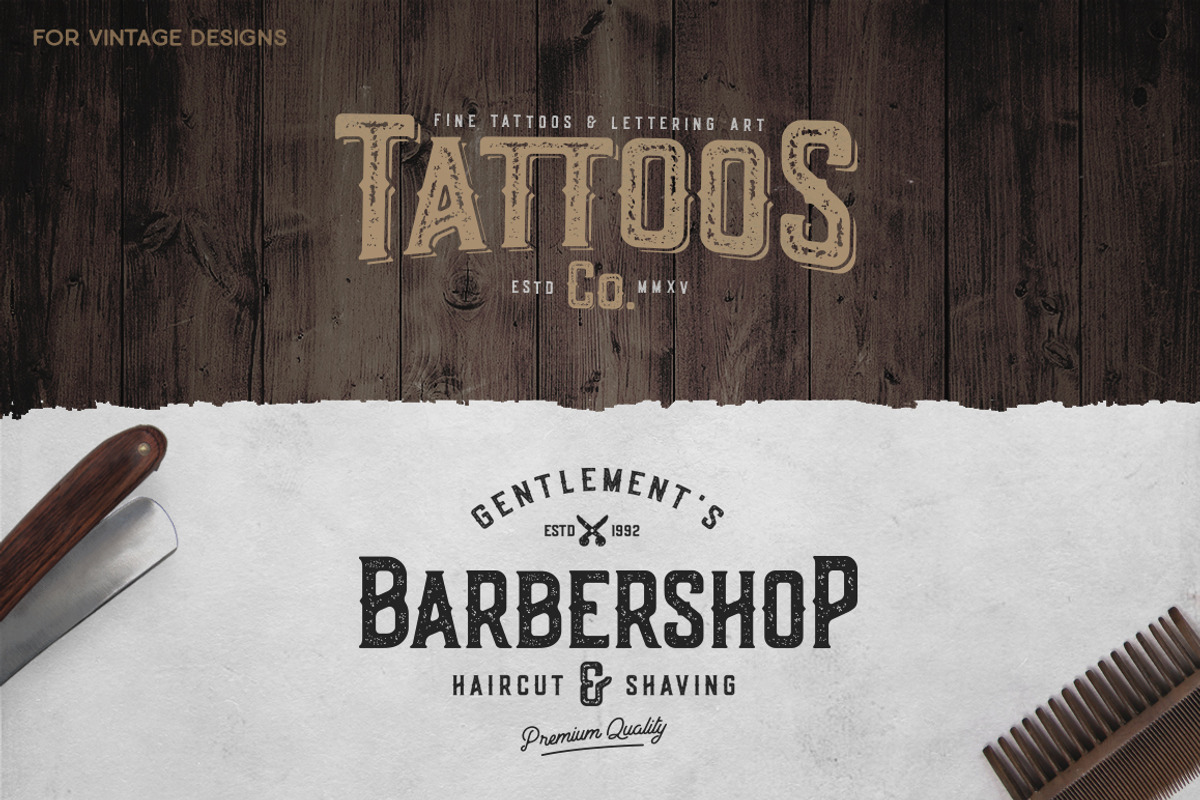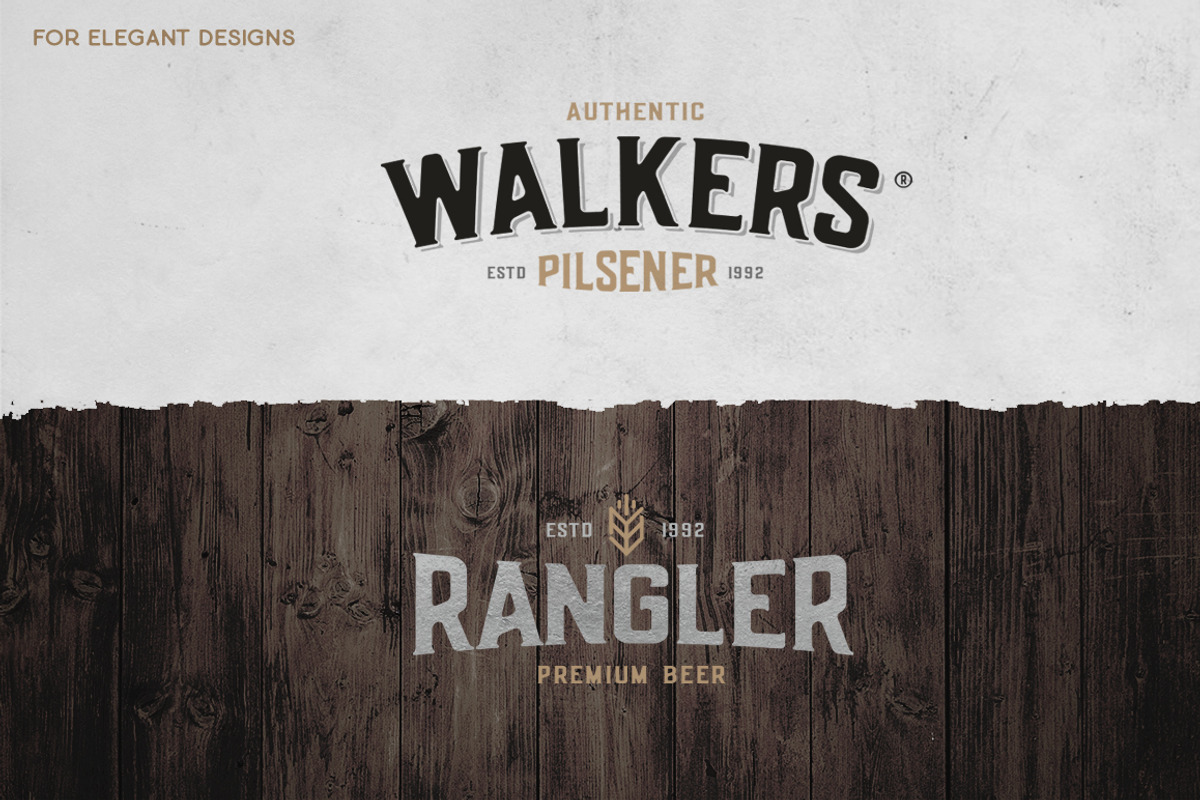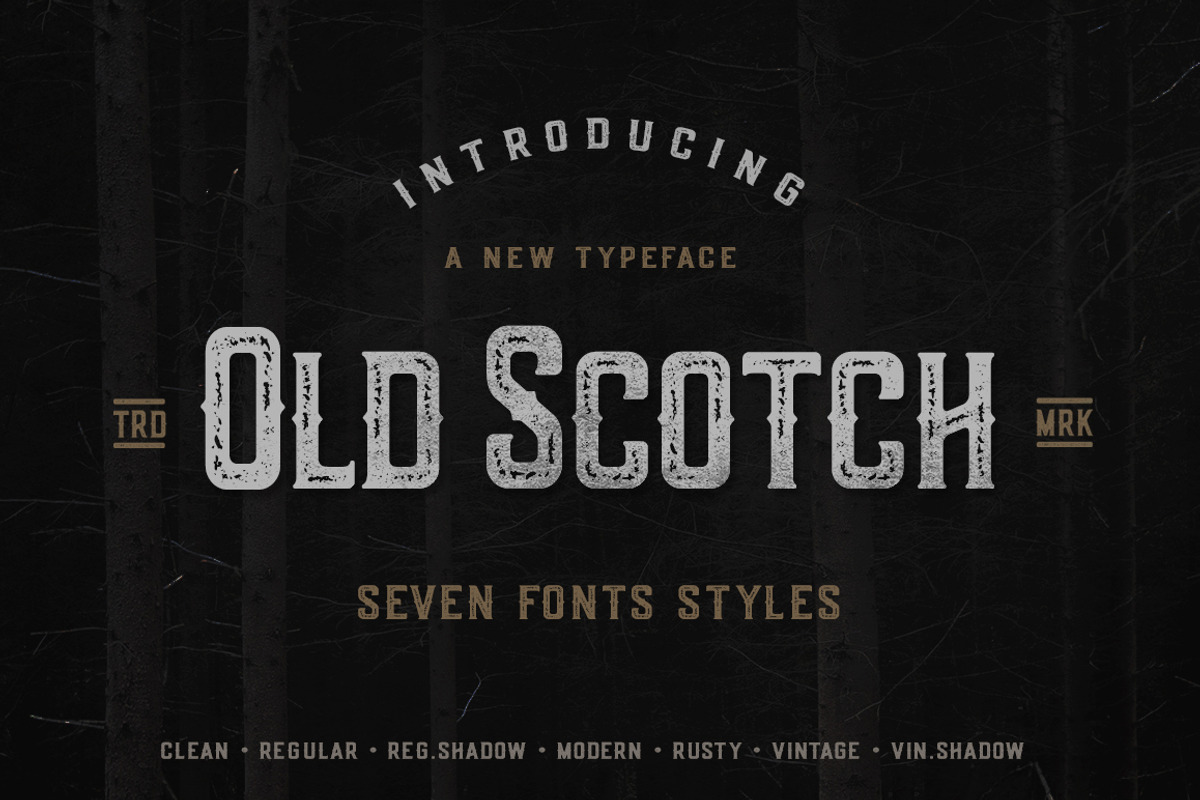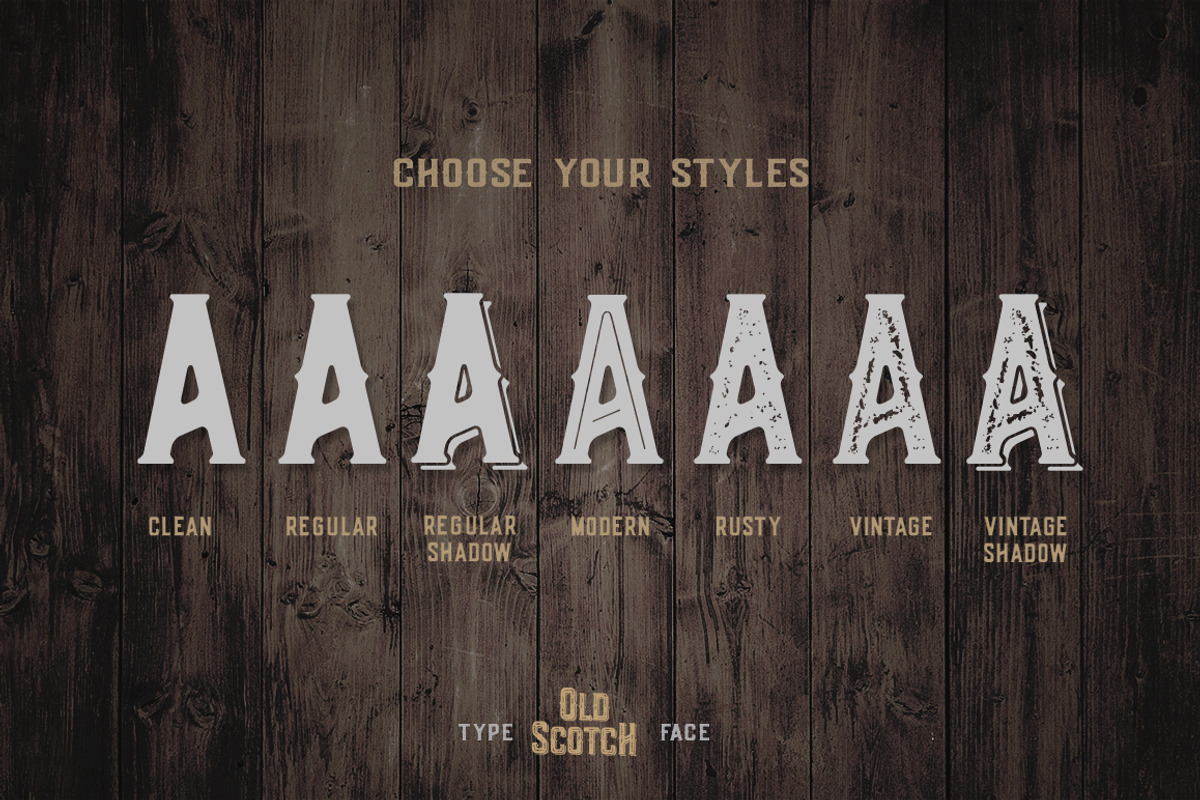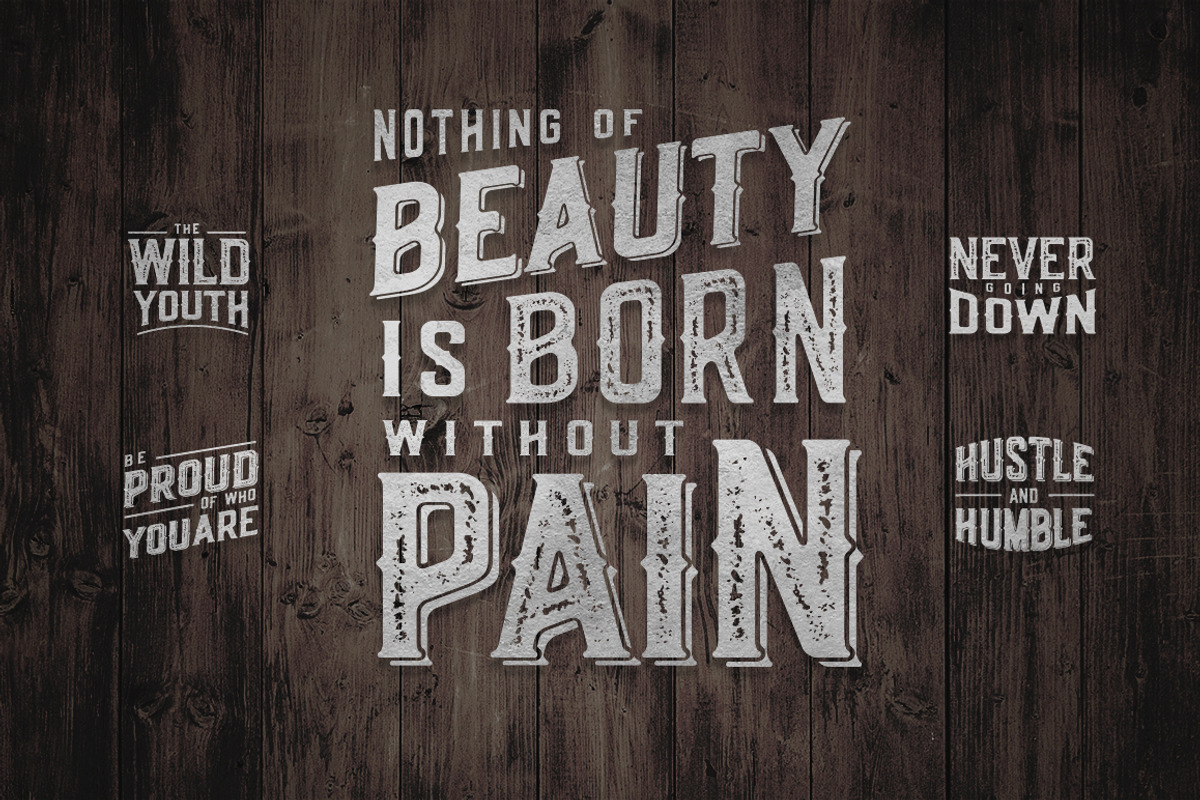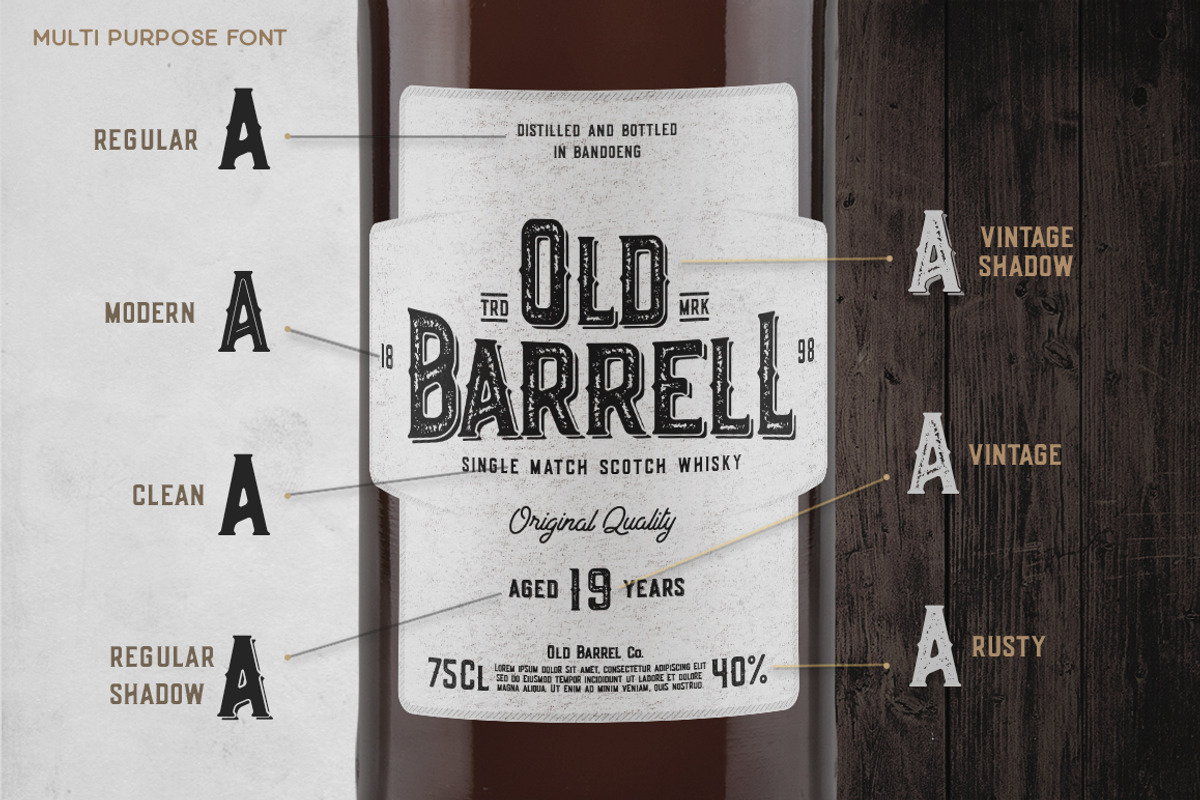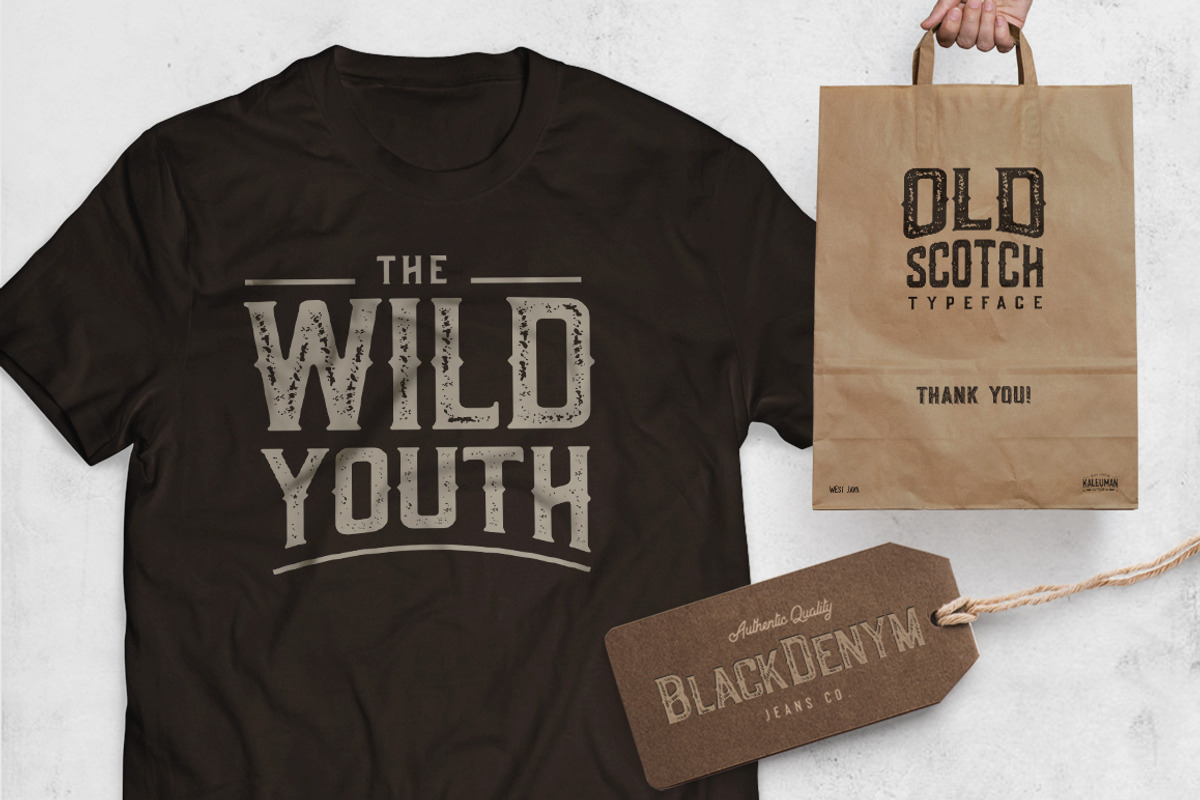
Old Scotch Typeface - 7 Styles
Old Scotch Typeface - 7 Styles by Wandery Supply is a font selected for branding, posters, packaging, typography.
Why Old Scotch Typeface - 7 Styles is worth a look
Old Scotch Typeface - 7 Styles by Wandery Supply fits naturally into Branding, posters, packaging, typography.